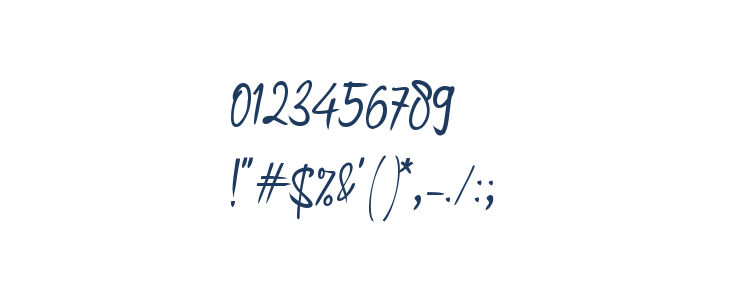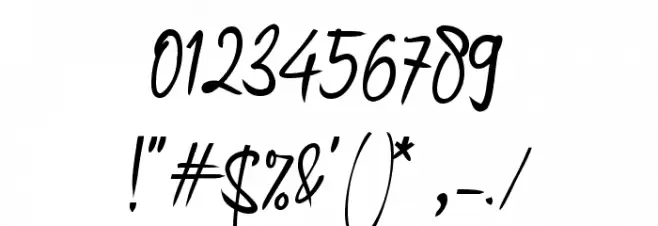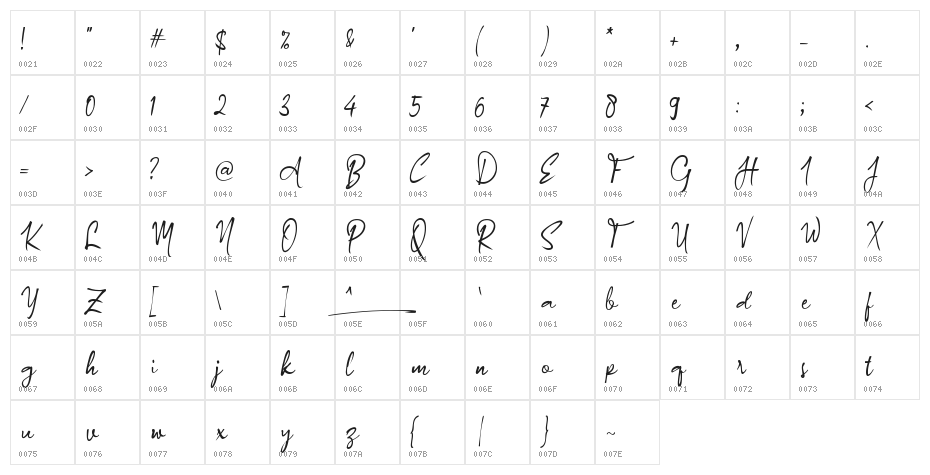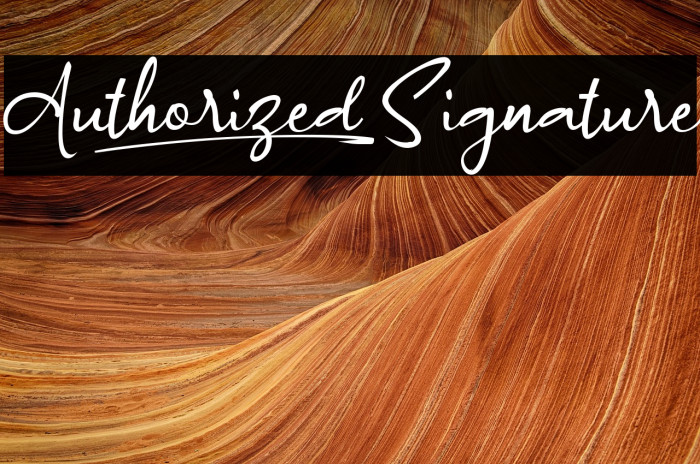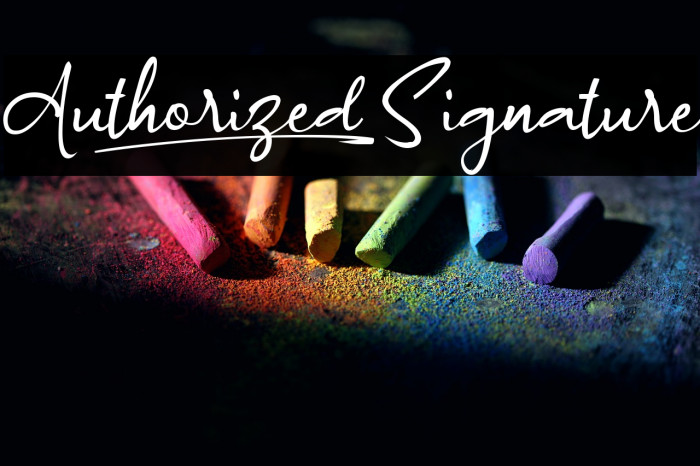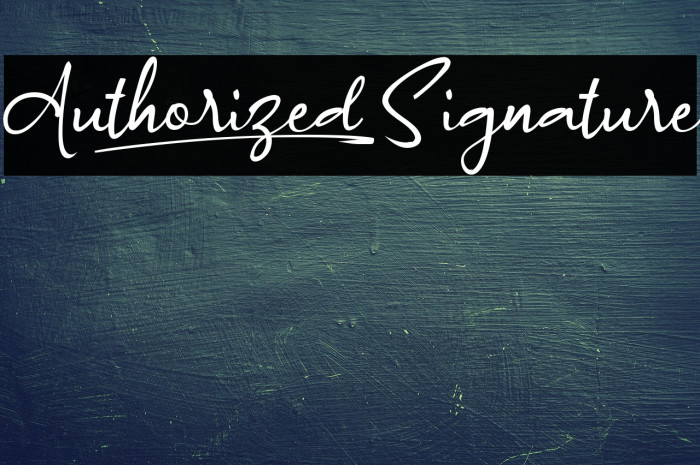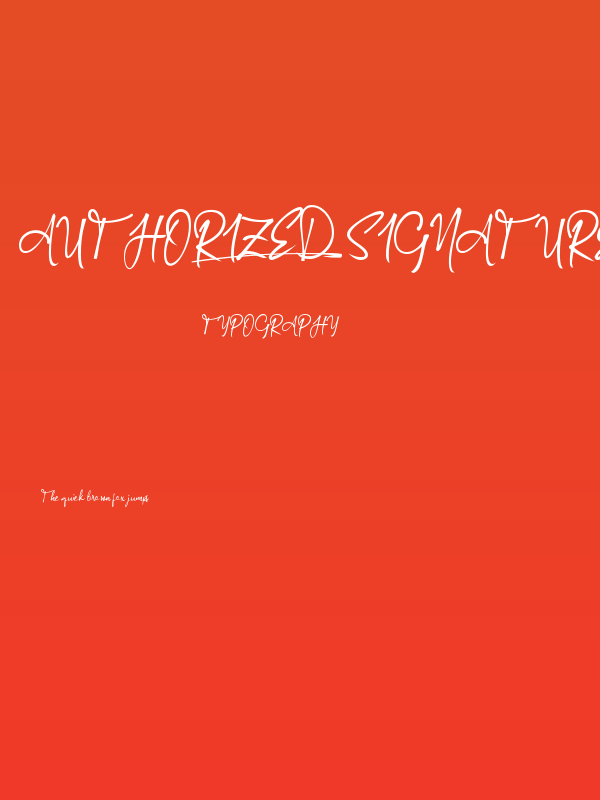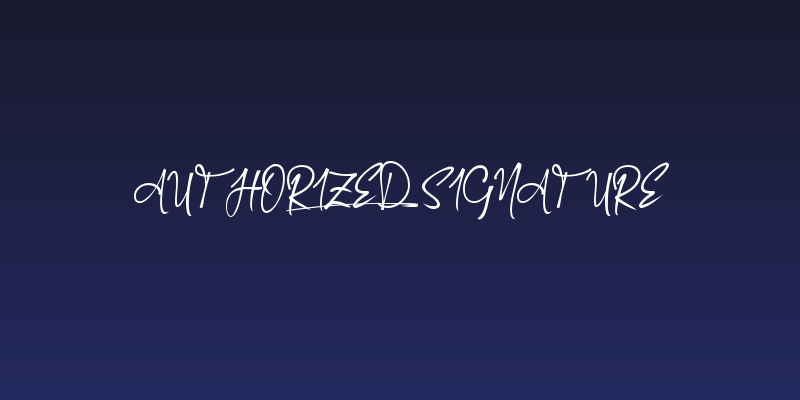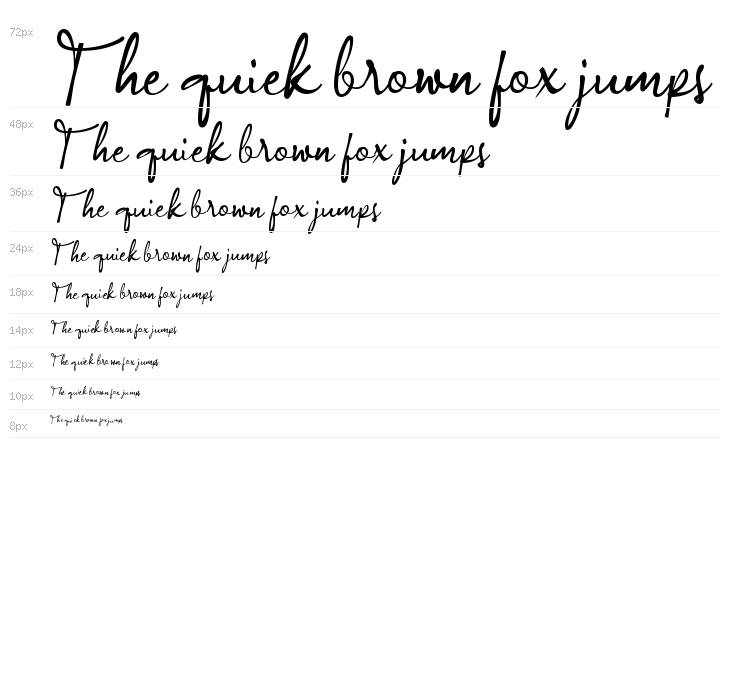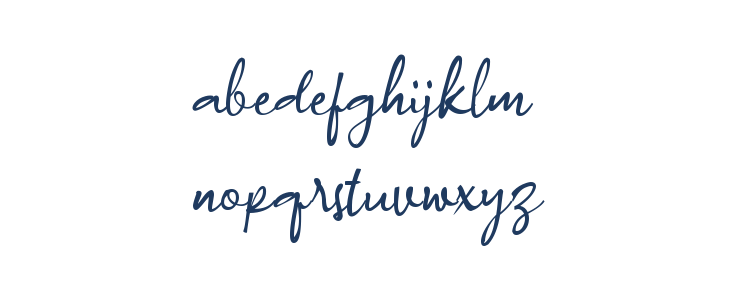
Authorized_Signature Font
Authorized_Signature Description
This font exhibits a lively and dynamic script style, characterized by fluid, interconnected strokes that mimic natural handwriting. The uppercase letters are bold and slightly slanted, giving an energetic feel, while the lowercase letters maintain a consistent flow with elegant curves. The numerals are distinct and easy to read, maintaining the script's playful nature. Special characters are creatively integrated, enhancing the font's versatility. The overall appearance is both sophisticated and approachable, making it suitable for a variety of creative applications.
A lively and dynamic script font with fluid, interconnected strokes from Uncategorized fonts.
- Proposed Projects: Ideal for wedding invitations, greeting cards, personal branding, and creative logos.
- Use Case: Logos, Invitations, Personal Branding